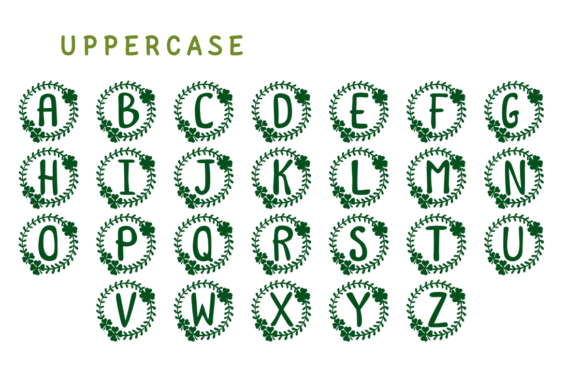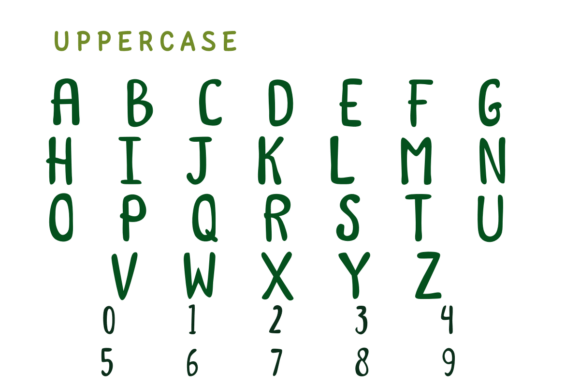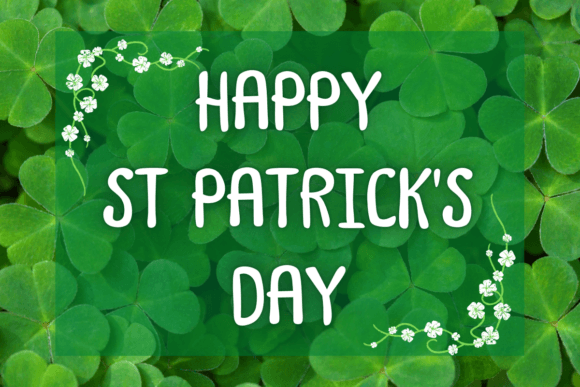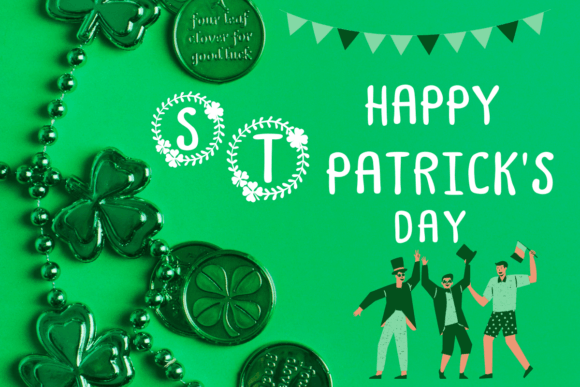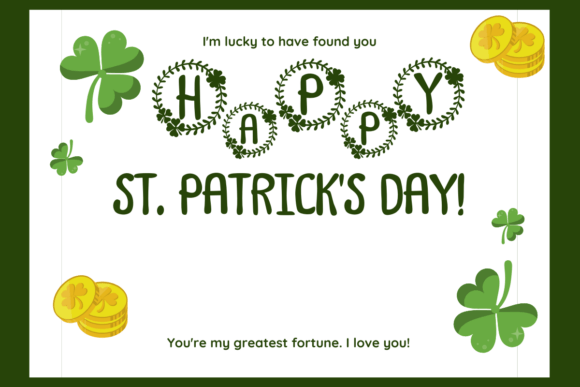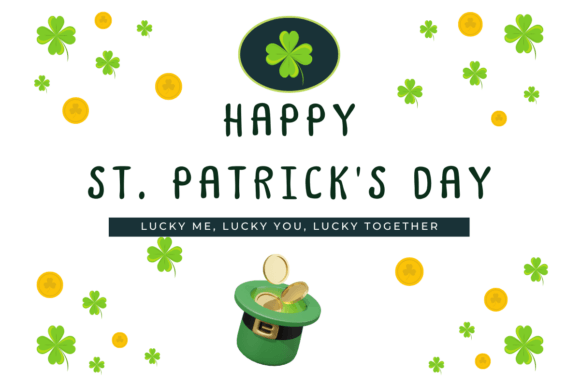
Introduction to Happy St Patrick Font
Happy St Patrick is a Decorative font.
You can use it for taking notes, writing a diary, or making greeting cards However, you can still use it for other designs, such as banners, content, mugs, cards, shirts, stationery, social media posts, and more.
Key Features of Happy St Patrick Font
Why Choose Happy St Patrick Font?
Happy St Patrick Font offers exceptional quality and versatility, making it a valuable addition to your design toolkit. Whether you’re creating for personal projects or commercial use, Happy St Patrick Font delivers professional results.